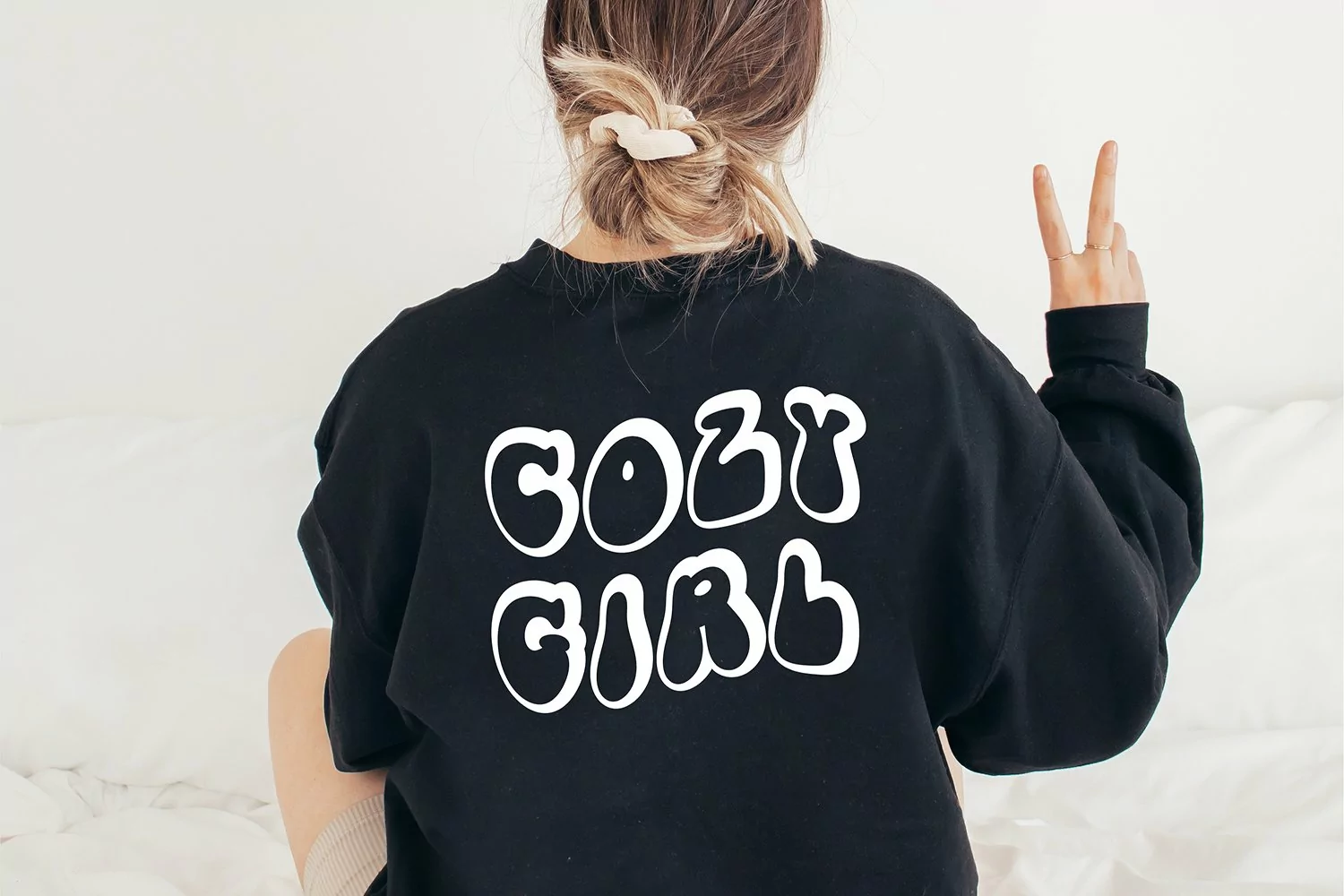
"Funky Retro Shadow" a 3d retro shadow font
This font is a trendy display font that is perfect for social media or crafty projects. Use it for branding, crafts for decor, t-shirts, and more! This font includes all caps glyphs, numbers, and basic punctuation marks.